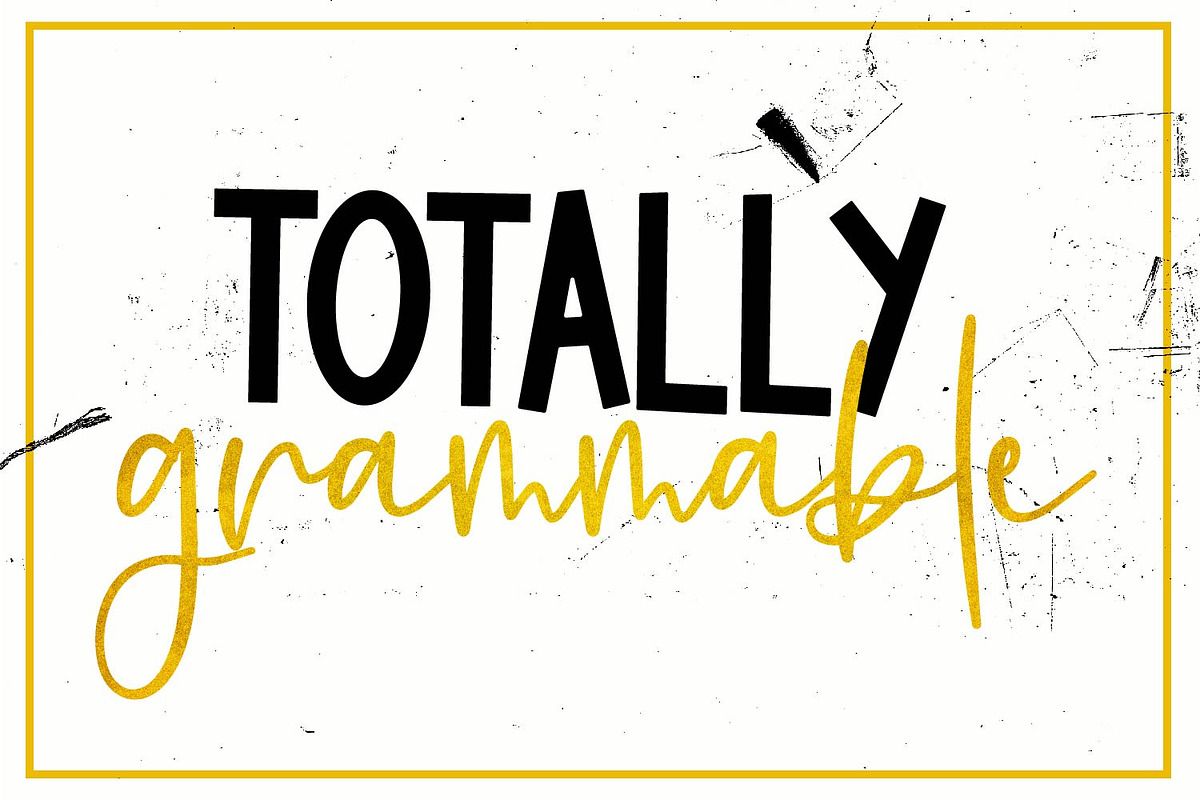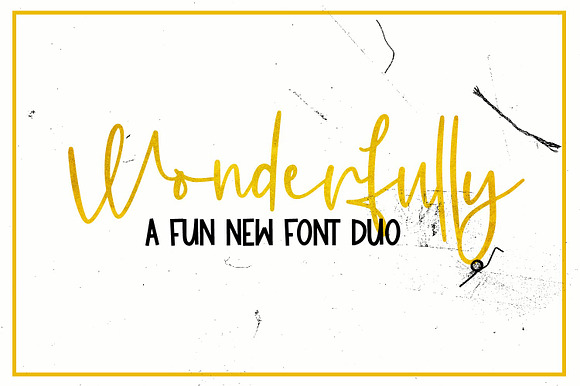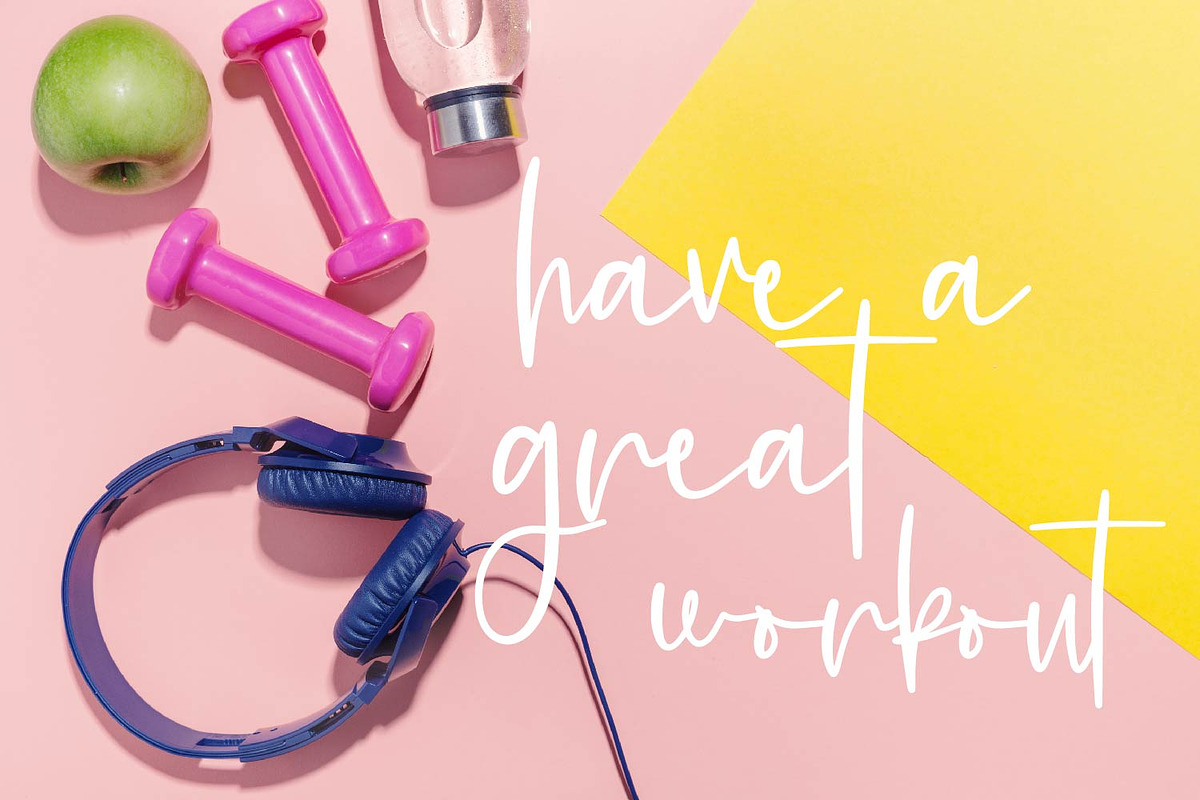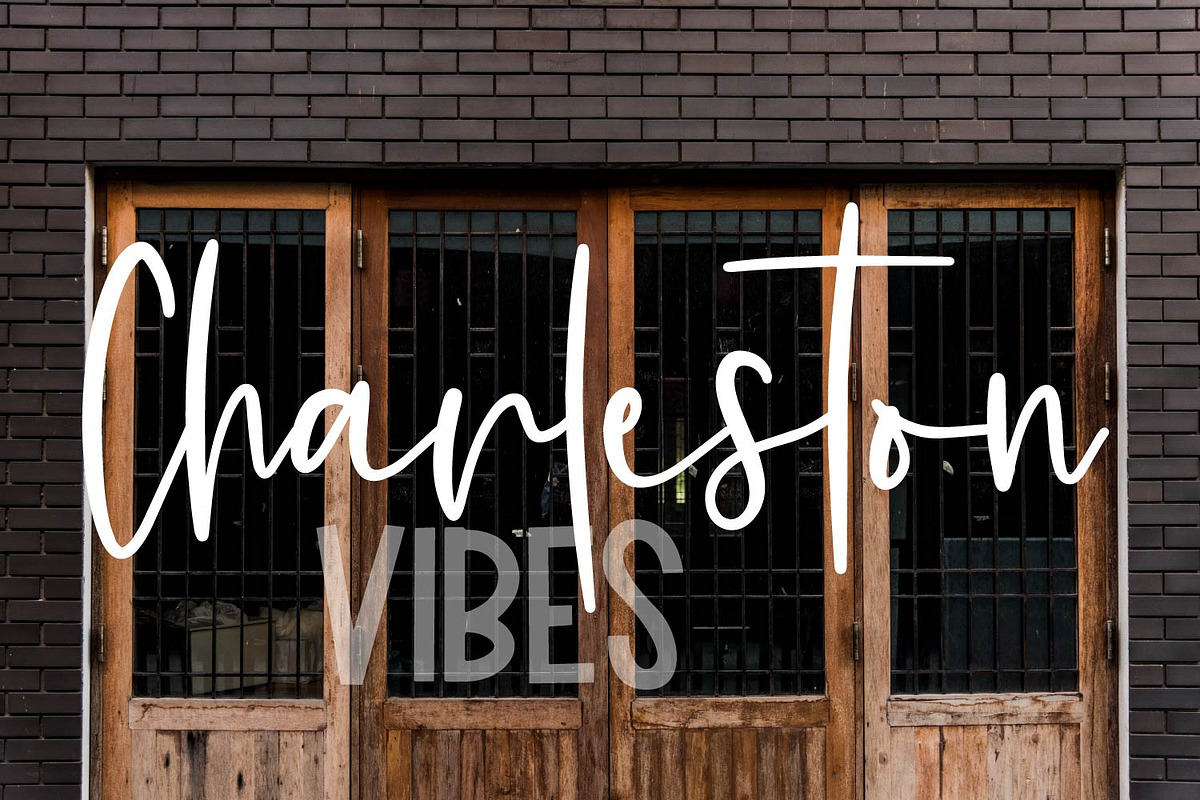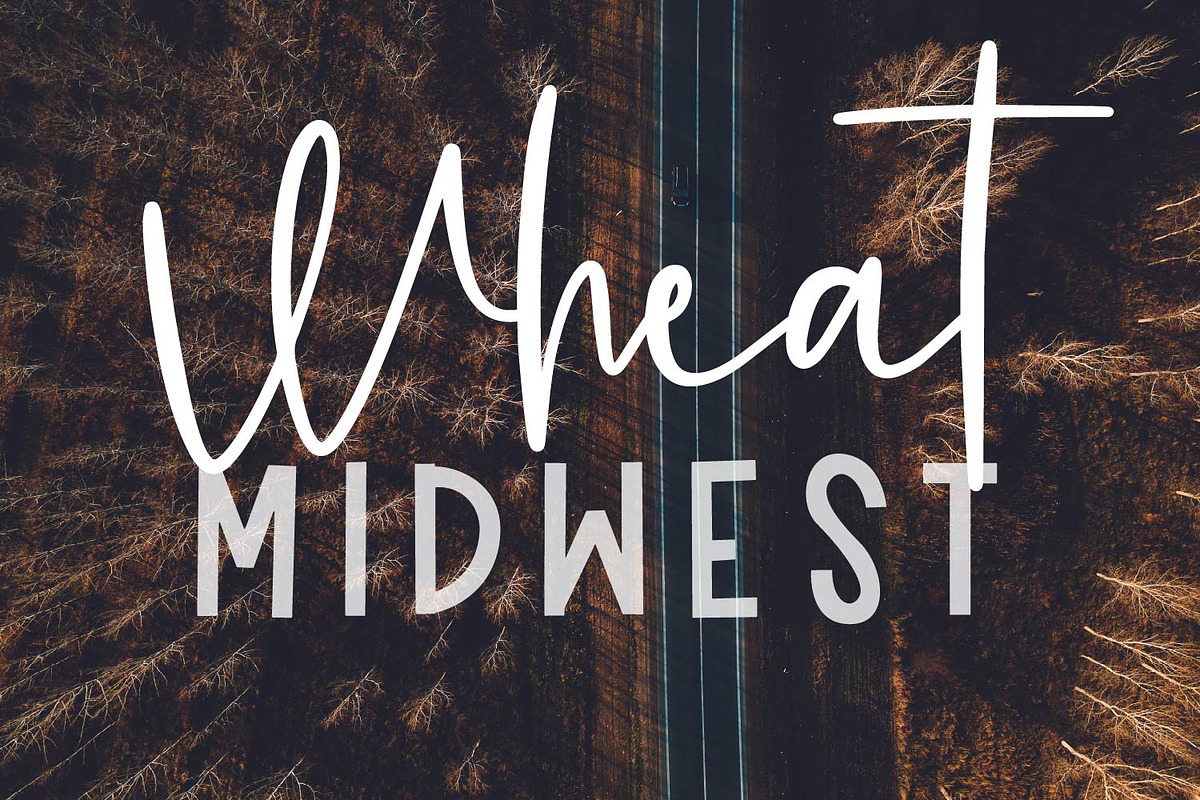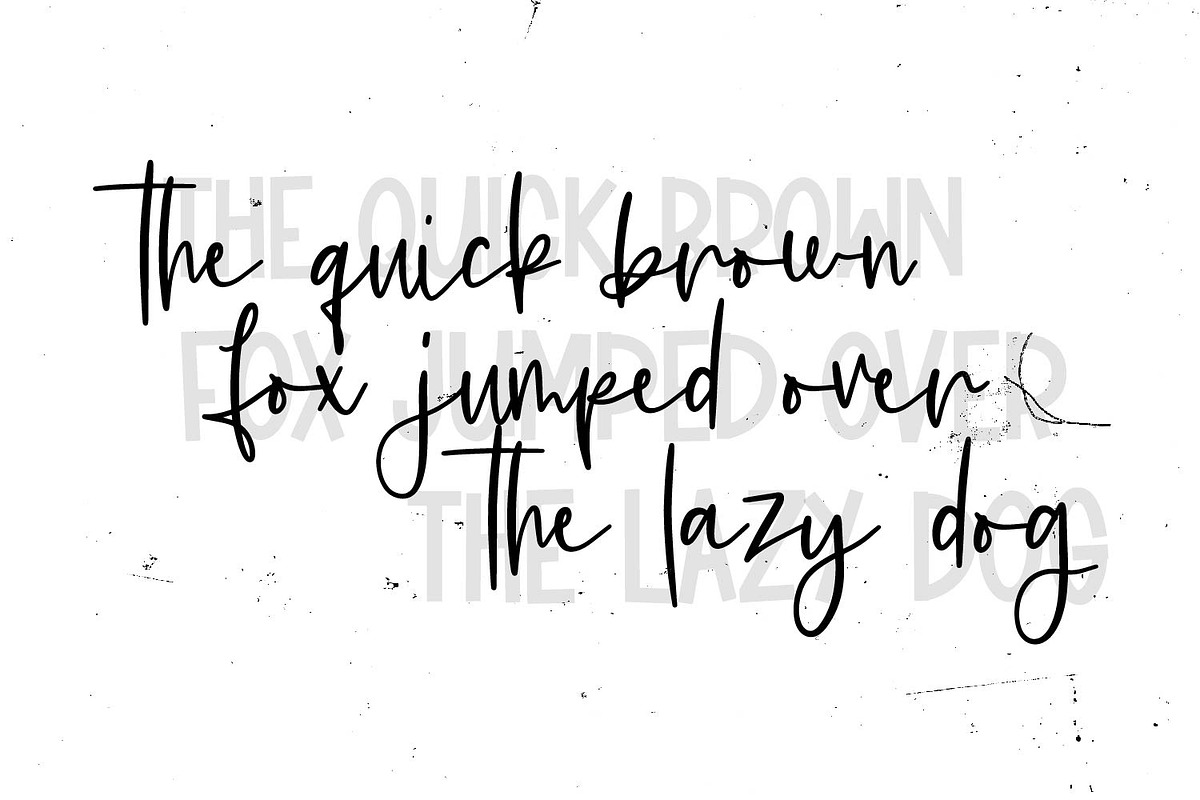
Wonderfully - A Font Duo
Wonderfully A Font Duo by CraftyLittleNodes is a font selected for branding, posters, packaging, typography.
Why Wonderfully - A Font Duo is worth a look
Wonderfully - A Font Duo by CraftyLittleNodes fits naturally into Branding, posters, packaging, typography.